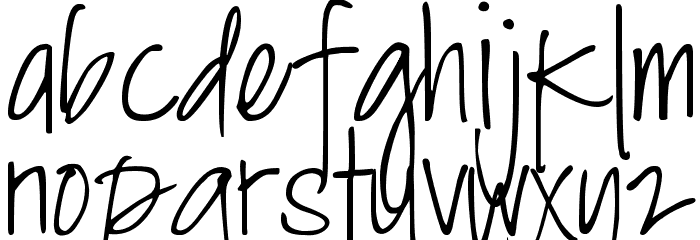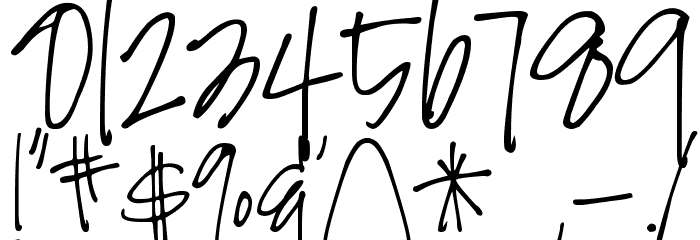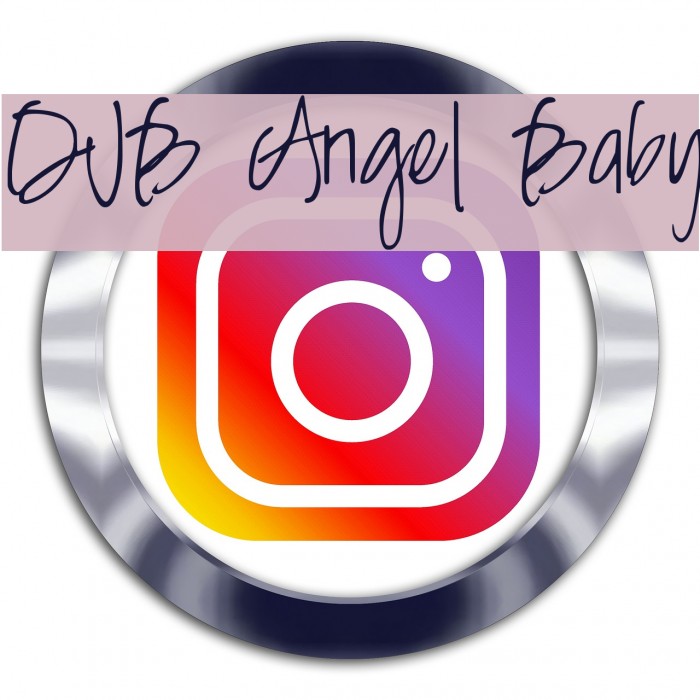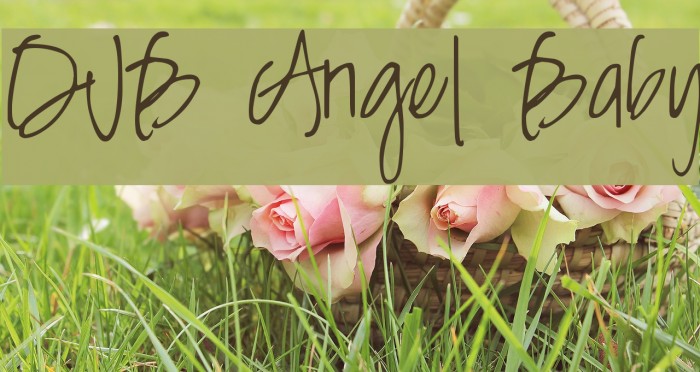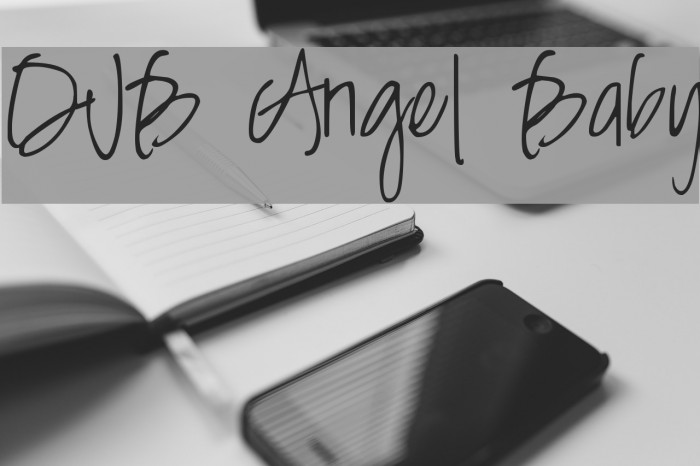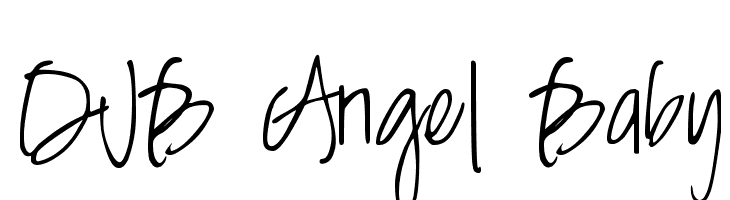
DJB Angel Baby Font
This font features a playful and whimsical handwritten style, characterized by its loose and flowing strokes. The letters are unevenly spaced, adding to its casual and informal appearance. The uppercase letters are bold and slightly slanted, while the lowercase letters maintain a consistent height, creating a harmonious balance. The numbers and special characters follow the same playful design, making the font versatile for various creative projects. Its unique style is perfect for adding a personal touch to any design.
A playful, whimsical handwritten font with loose, flowing strokes.
- Proposed Projects: Ideal for greeting cards, invitations, children's books, and playful branding projects.
- Character Spacing: Wide